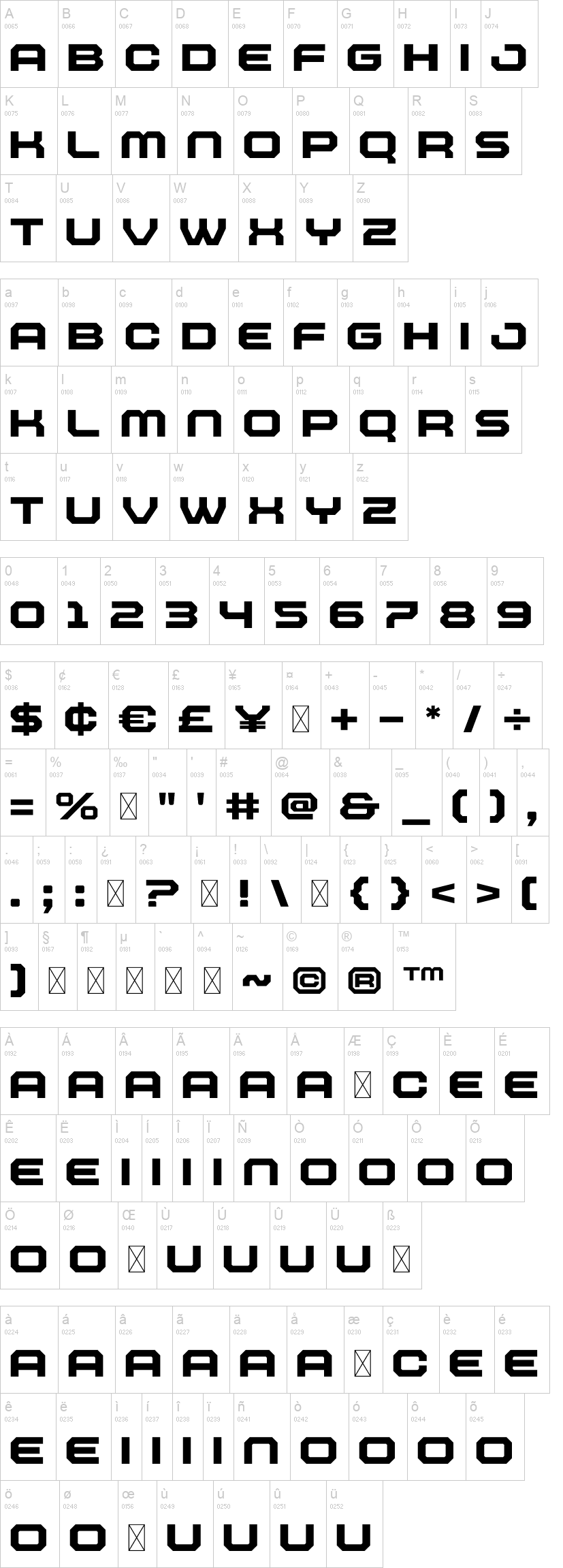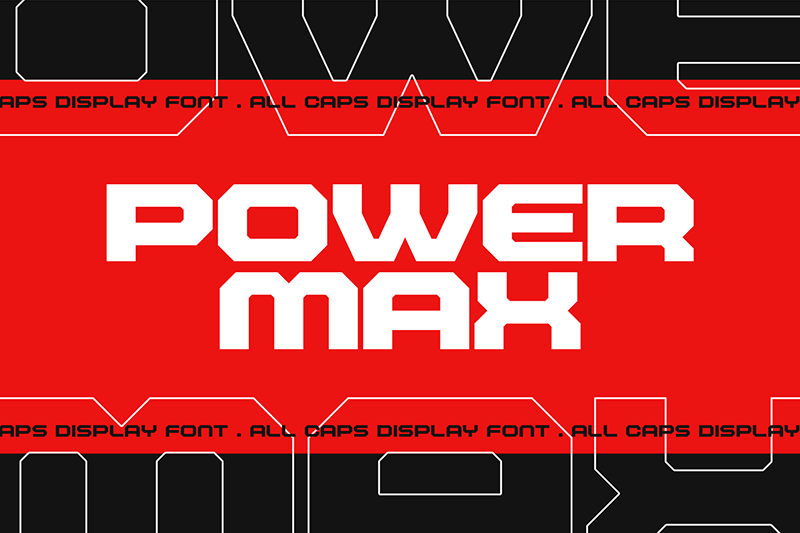
Powermax-Bold.otfNote of the authorPOWERMAX is free for personal use font made for needs such as logos, posters or main texts that require a loud and powerful feel.